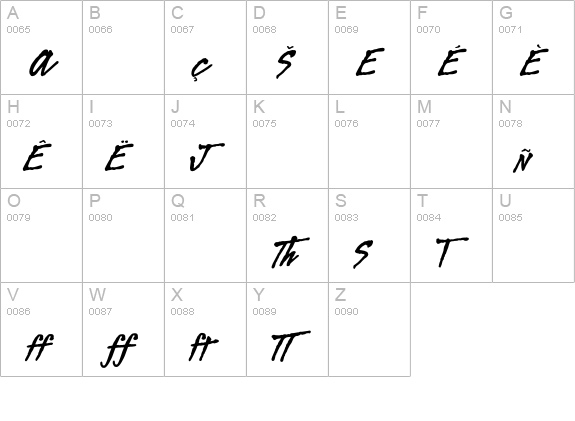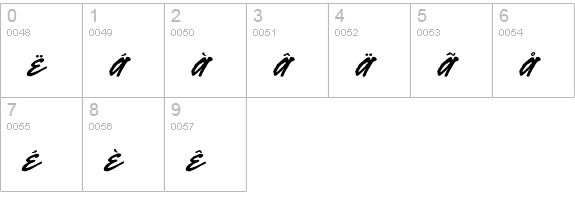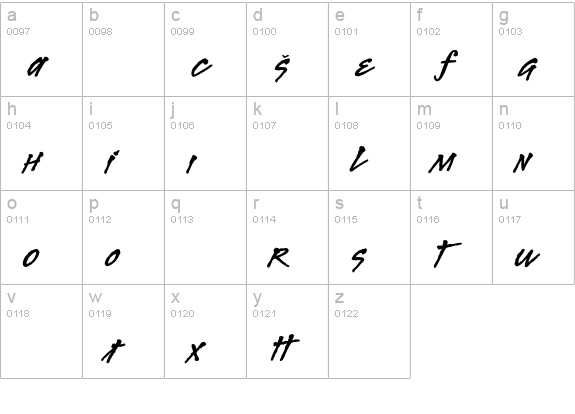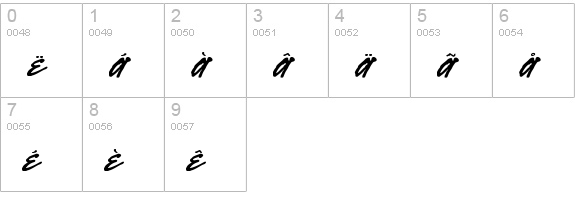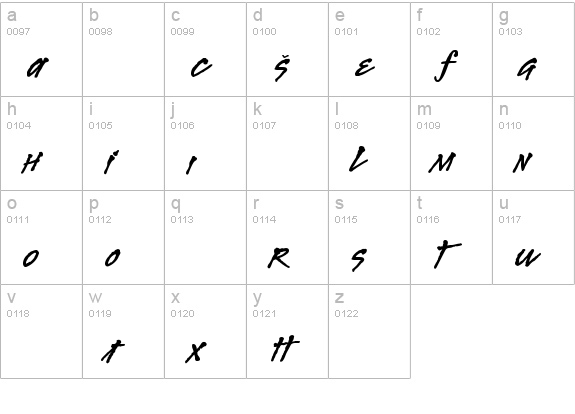
Legault Bold Alternates is a strong, high-contrast variant in the Legault typeface family \xE2\x80\x94 well suited to headlines, attention-grabbing titles, and strong calls-to-action.
Legault Bold Alternates font is a versatile and eye-catching typeface that is sure to make a bold statement in any design project. With its strong and sturdy letterforms, this font exudes confidence and authority. The alternates add a unique twist, allowing for even more creative possibilities. This font is perfect for headlines, logos, posters, and any other design where you want to grab attention. Its bold and distinctive style is sure to make your message stand out from the crowd. And the best part? Legault Bold Alternates font is completely free! That's right, you can download this amazing font at FontsMarket.com without spending a dime. Whether you're a professional designer or just experimenting with typography, this font is a must-have in your collection. So why wait? Go ahead and download Legault Bold Alternates font today and start creating stunning designs that demand attention. With its free availability and endless design possibilities, this font is a true game-changer.